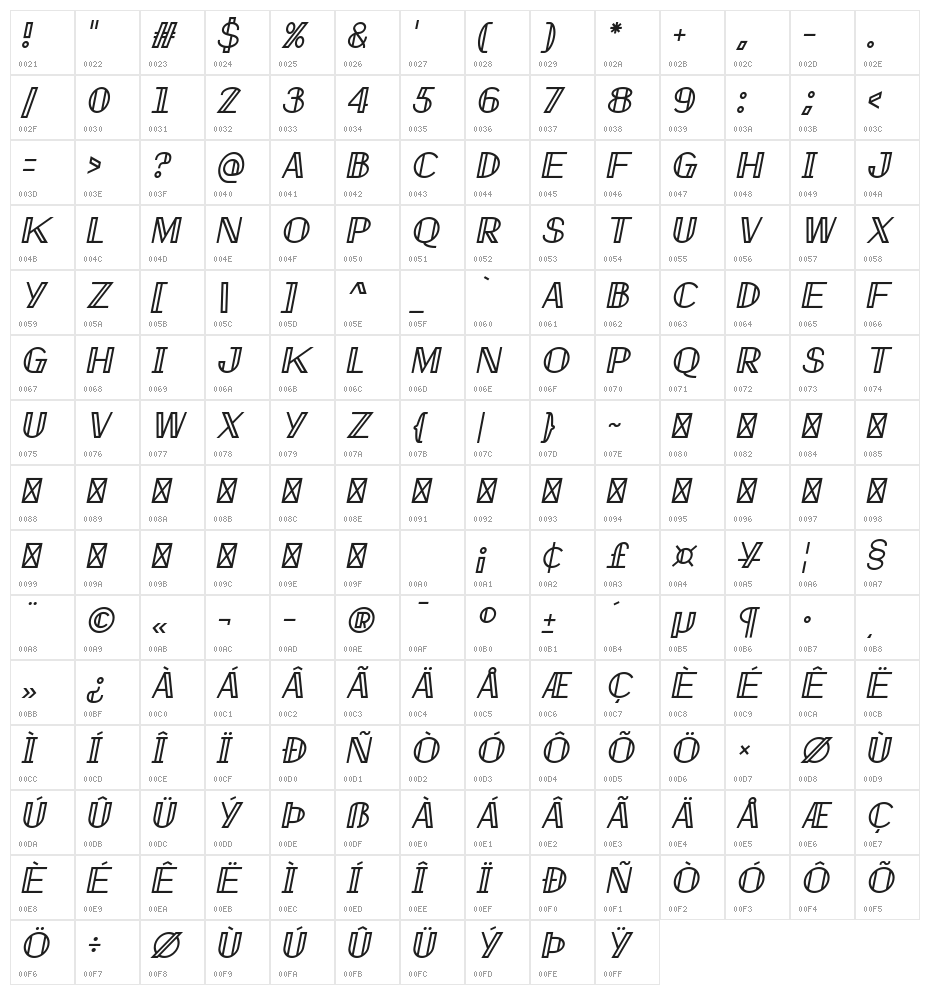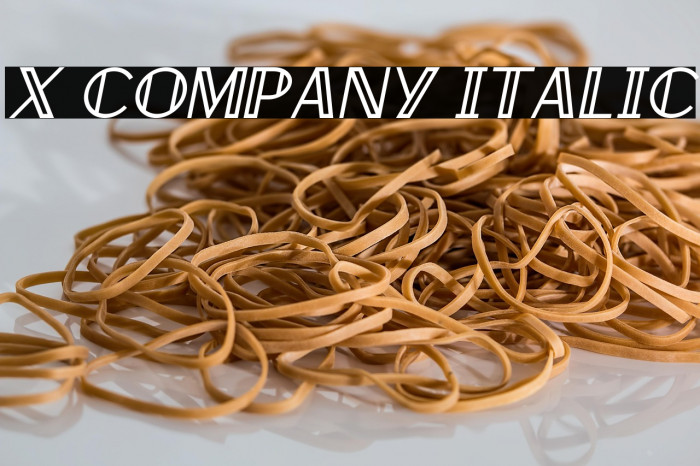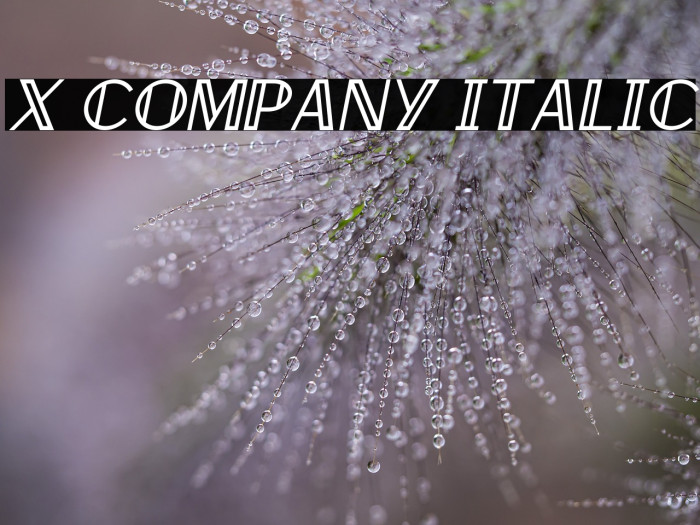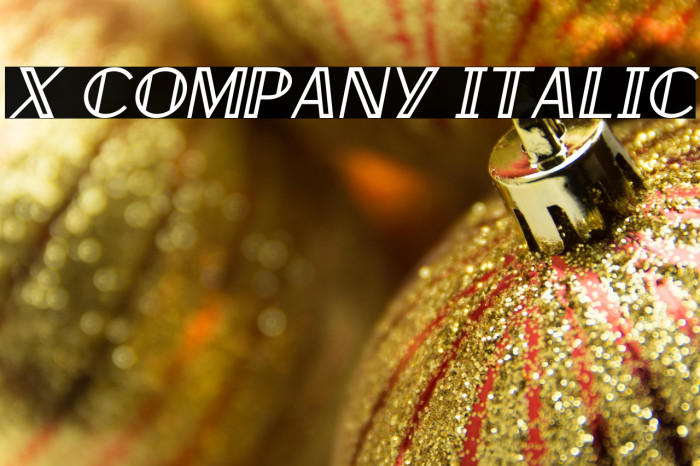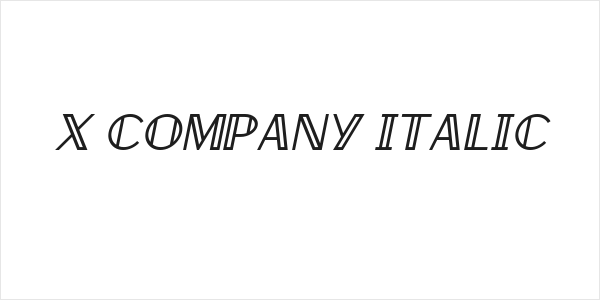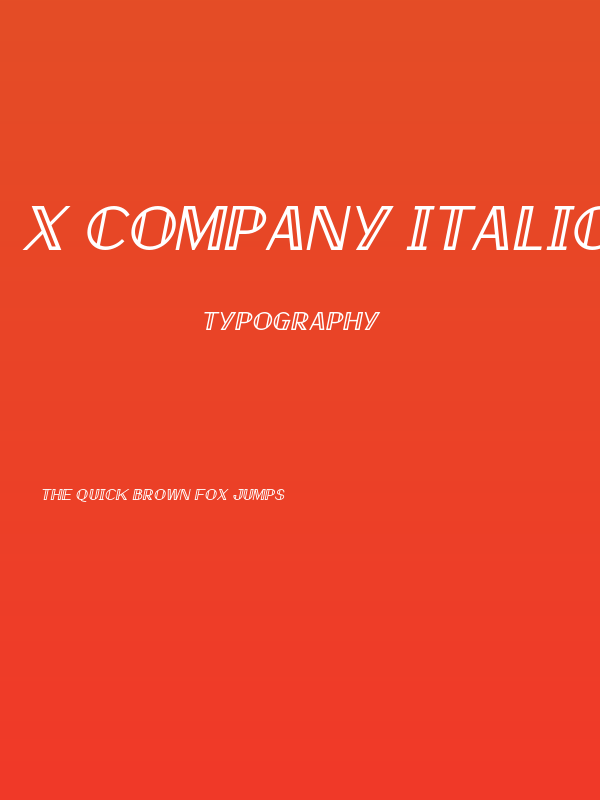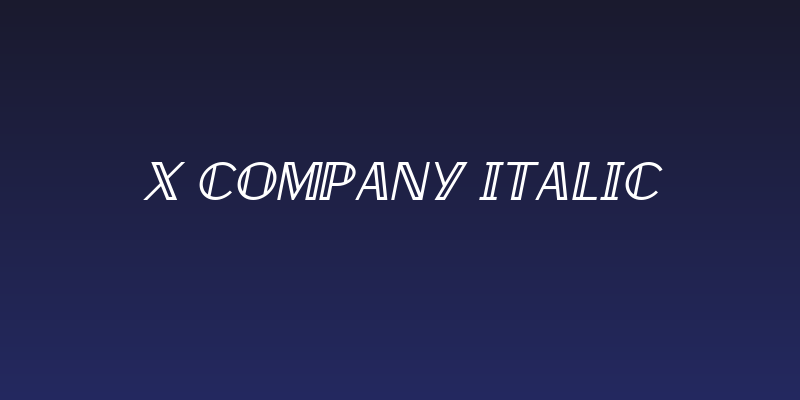
X Company Italic Font
X Company Italic Description
This font features a modern and dynamic style with a distinct italic slant, giving it a sense of motion and energy. The characters are crafted with clean, sharp lines and a uniform stroke width, creating a sleek and professional appearance. The uppercase and lowercase letters maintain a consistent design, ensuring readability and coherence across different text sizes. The numerals and special characters are designed to complement the alphabet, providing a complete and versatile typeface suitable for various applications.
| Proposed Projects | Ideal for branding, advertising, and editorial design projects that require a modern and energetic feel. |